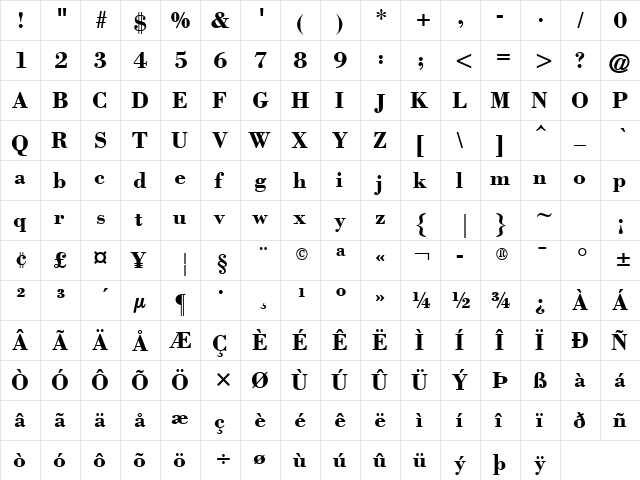
Bodony Bold
Design Context for Bodony Typeface
Bodony is a composed and adaptable typeface that performs quietly and consistently across a wide range of design contexts. The heavy weight commands attention and anchors typographic hierarchies.